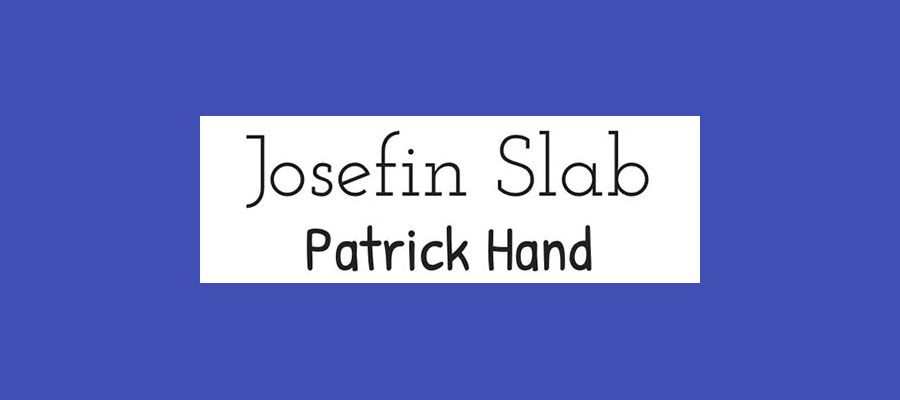
48+ Serif Font Pairing SVG File. Now that we've got the font categories nailed down, let's talk about putting them together. Sans (without in french) serif fonts are fonts without serifs. How to pair fonts in designs. A safe bet when it comes to pairing fonts is to combine a serif font with a sans serif font, like in the example above. Great font pairings are essential to great design. What makes a great serif to sans serif pairing or vice versa? In the article below we explain the basics of choosing great fonts. But picking great fonts can seem like an impossible dark art for most people. 1 combine a serif with a sans serif. Traditionally, this involves pairing a serif with a sans serif. What should you look for? Contrast serif fonts with a sans serif font. Serif fonts have small decorative lines or embellishments at the ends of characters, while sans serif fonts do not include the decorative lines. I often get questioned about good pairing between serif and sans serif typefaces. Typefaces will generally conflict if they are too similar:
Fontpair Helps You Pair Google Fonts Together. Great font pairings are essential to great design. Traditionally, this involves pairing a serif with a sans serif. Now that we've got the font categories nailed down, let's talk about putting them together. Serif fonts have small decorative lines or embellishments at the ends of characters, while sans serif fonts do not include the decorative lines. In the article below we explain the basics of choosing great fonts. How to pair fonts in designs. I often get questioned about good pairing between serif and sans serif typefaces. Contrast serif fonts with a sans serif font. A safe bet when it comes to pairing fonts is to combine a serif font with a sans serif font, like in the example above. Typefaces will generally conflict if they are too similar: Sans (without in french) serif fonts are fonts without serifs. What makes a great serif to sans serif pairing or vice versa? What should you look for? But picking great fonts can seem like an impossible dark art for most people. 1 combine a serif with a sans serif.
Pairing fonts is an essential process of any web design. To help you find font pairings, we organized them in two ways: Other good fonts for serif include lucida grande, gill sans, brandon grotesque, ff meta serif we want to know what font goes with what. Its well suited for body text and. Serif fonts tend to feel more grounded. What should you look for? 1 combine a serif with a sans serif. How to pair fonts in designs. A strong font pairing is like a good relationship. When pairing fonts, you're aiming for visual balance with the right contrast. The fonts need to share some basic commonalities great font pairings start by understanding the different families of type (serif, slab, sans serif, script. A serif font has fine lines at the tips of the letters. Now that we've got the font categories nailed down, let's talk about putting them together. They're a popular choice for print materials as they are easier to. Mix and match different fonts for the perfect pairing. Fonts and font pairings are one of the most crucial parts of a design. I'm looking for pairs like this keeping the fonts used tightly paired, rather than simply mixing say gill sans and perpetua or. Sans serif headline + serif body text. In the article below we explain the basics of choosing great fonts. Sans (without in french) serif fonts are fonts without serifs. If you want to create a good website design, you need to be able to make decisions such as. Serif fonts, like times new roman. Fonts paired together that have different weights and styles tend to contrast well together. Serif fonts have a small line attached to the ends of strokes. Contrast serif fonts with a sans serif font. Font pair helps designers to combine google fonts. Font pair helps designers pair google fonts together. Every font is free to download! In this video, i will show you free font combinations of serif and sans serif fonts from google fonts. Style (serif, sans serif, both), and mood it also takes things a step further and shifts the feel. Fontjoy helps designers choose the best font combinations.
Pairing Fonts The Step By Step Illustrated Guide. But picking great fonts can seem like an impossible dark art for most people. A safe bet when it comes to pairing fonts is to combine a serif font with a sans serif font, like in the example above. Contrast serif fonts with a sans serif font. Great font pairings are essential to great design. Traditionally, this involves pairing a serif with a sans serif. Now that we've got the font categories nailed down, let's talk about putting them together. Sans (without in french) serif fonts are fonts without serifs. In the article below we explain the basics of choosing great fonts. 1 combine a serif with a sans serif. Typefaces will generally conflict if they are too similar: Serif fonts have small decorative lines or embellishments at the ends of characters, while sans serif fonts do not include the decorative lines. What makes a great serif to sans serif pairing or vice versa? I often get questioned about good pairing between serif and sans serif typefaces. What should you look for? How to pair fonts in designs.
10 Free Fonts That Will Transform Your Website Squarespace Designer Kate Scott. Great font pairings are essential to great design. Contrast serif fonts with a sans serif font. What should you look for? Now that we've got the font categories nailed down, let's talk about putting them together. I often get questioned about good pairing between serif and sans serif typefaces. But picking great fonts can seem like an impossible dark art for most people. A safe bet when it comes to pairing fonts is to combine a serif font with a sans serif font, like in the example above. In the article below we explain the basics of choosing great fonts. 1 combine a serif with a sans serif. Typefaces will generally conflict if they are too similar: Traditionally, this involves pairing a serif with a sans serif. Sans (without in french) serif fonts are fonts without serifs. How to pair fonts in designs. Serif fonts have small decorative lines or embellishments at the ends of characters, while sans serif fonts do not include the decorative lines. What makes a great serif to sans serif pairing or vice versa?
Fonts paired together that have different weights and styles tend to contrast well together.
The Ultimate Free Font Pairing Guide 180 Examples Plus Templates Easil. What should you look for? Great font pairings are essential to great design. In the article below we explain the basics of choosing great fonts. But picking great fonts can seem like an impossible dark art for most people. A safe bet when it comes to pairing fonts is to combine a serif font with a sans serif font, like in the example above. Contrast serif fonts with a sans serif font. Sans (without in french) serif fonts are fonts without serifs. How to pair fonts in designs. Traditionally, this involves pairing a serif with a sans serif. I often get questioned about good pairing between serif and sans serif typefaces. Typefaces will generally conflict if they are too similar: 1 combine a serif with a sans serif. Serif fonts have small decorative lines or embellishments at the ends of characters, while sans serif fonts do not include the decorative lines. What makes a great serif to sans serif pairing or vice versa? Now that we've got the font categories nailed down, let's talk about putting them together.
Typefaces will generally conflict if they are too similar:
50 Perfect Font Combinations To Kickstart Your Next Design. Sans (without in french) serif fonts are fonts without serifs. I often get questioned about good pairing between serif and sans serif typefaces. What should you look for? Typefaces will generally conflict if they are too similar: A safe bet when it comes to pairing fonts is to combine a serif font with a sans serif font, like in the example above. But picking great fonts can seem like an impossible dark art for most people. Serif fonts have small decorative lines or embellishments at the ends of characters, while sans serif fonts do not include the decorative lines. Contrast serif fonts with a sans serif font. Great font pairings are essential to great design. How to pair fonts in designs. 1 combine a serif with a sans serif. In the article below we explain the basics of choosing great fonts. Traditionally, this involves pairing a serif with a sans serif. What makes a great serif to sans serif pairing or vice versa? Now that we've got the font categories nailed down, let's talk about putting them together.
Lora is a well balanced serif with roots in calligraphy.
The Ultimate Free Font Pairing Guide 180 Examples Plus Templates Easil. What makes a great serif to sans serif pairing or vice versa? Typefaces will generally conflict if they are too similar: Great font pairings are essential to great design. Sans (without in french) serif fonts are fonts without serifs. Now that we've got the font categories nailed down, let's talk about putting them together. I often get questioned about good pairing between serif and sans serif typefaces. How to pair fonts in designs. In the article below we explain the basics of choosing great fonts. What should you look for? Contrast serif fonts with a sans serif font. But picking great fonts can seem like an impossible dark art for most people. Serif fonts have small decorative lines or embellishments at the ends of characters, while sans serif fonts do not include the decorative lines. 1 combine a serif with a sans serif. A safe bet when it comes to pairing fonts is to combine a serif font with a sans serif font, like in the example above. Traditionally, this involves pairing a serif with a sans serif.
The Ultimate Guide To Font Pairing Learn. How to pair fonts in designs. 1 combine a serif with a sans serif. In the article below we explain the basics of choosing great fonts. Great font pairings are essential to great design. Contrast serif fonts with a sans serif font. A safe bet when it comes to pairing fonts is to combine a serif font with a sans serif font, like in the example above. Sans (without in french) serif fonts are fonts without serifs. I often get questioned about good pairing between serif and sans serif typefaces. What makes a great serif to sans serif pairing or vice versa? What should you look for? Typefaces will generally conflict if they are too similar: Serif fonts have small decorative lines or embellishments at the ends of characters, while sans serif fonts do not include the decorative lines. But picking great fonts can seem like an impossible dark art for most people. Now that we've got the font categories nailed down, let's talk about putting them together. Traditionally, this involves pairing a serif with a sans serif.
In the article below we explain the basics of choosing great fonts. Pairing fonts can be a challenge. These four tips for using fonts will help you choose ones that work well there are two main categories of fonts: Here is an ultimate guide to font pairing with according to a typographic patterns study conducted by michael martin, serif fonts have captured a. Every font is free to download! Sans serif headline + serif body text. Beautiful google font combinations and pairs. If you come across a site you like drop us an email about it. Serif fonts have a small line attached to the ends of strokes. Font pair helps designers pair google fonts together.